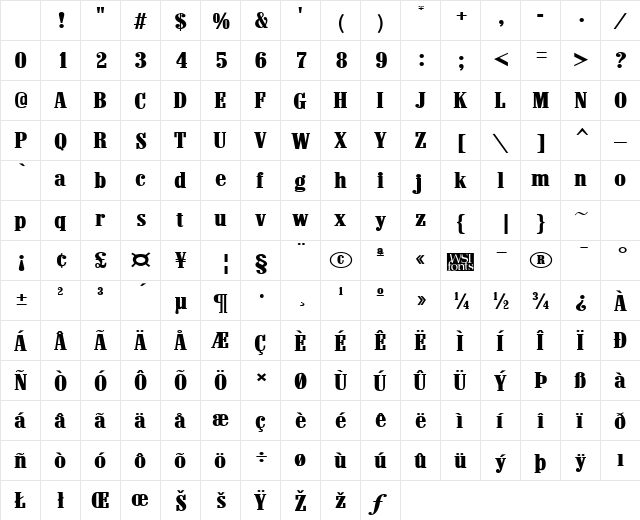
MarlboroWide Regular
Design Context for MarlboroWide
MarlboroWide is a composed and adaptable typeface that performs quietly and consistently across a wide range of design contexts.